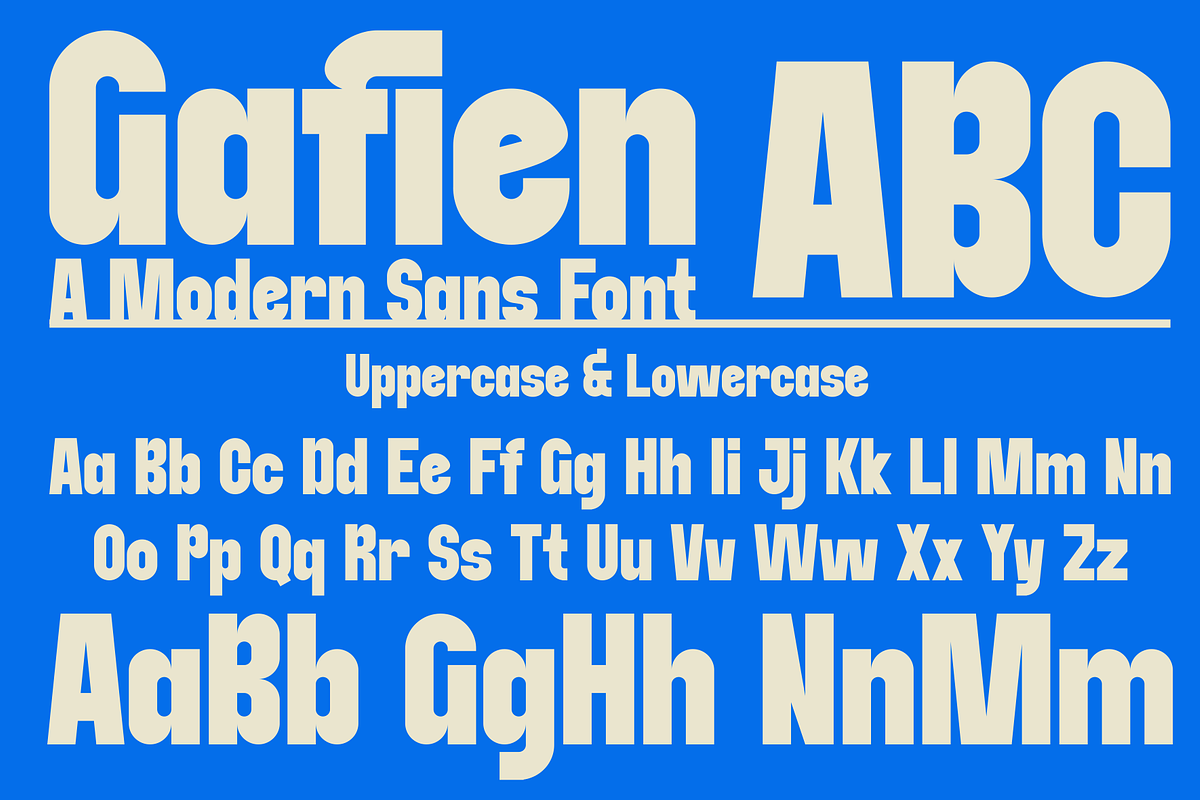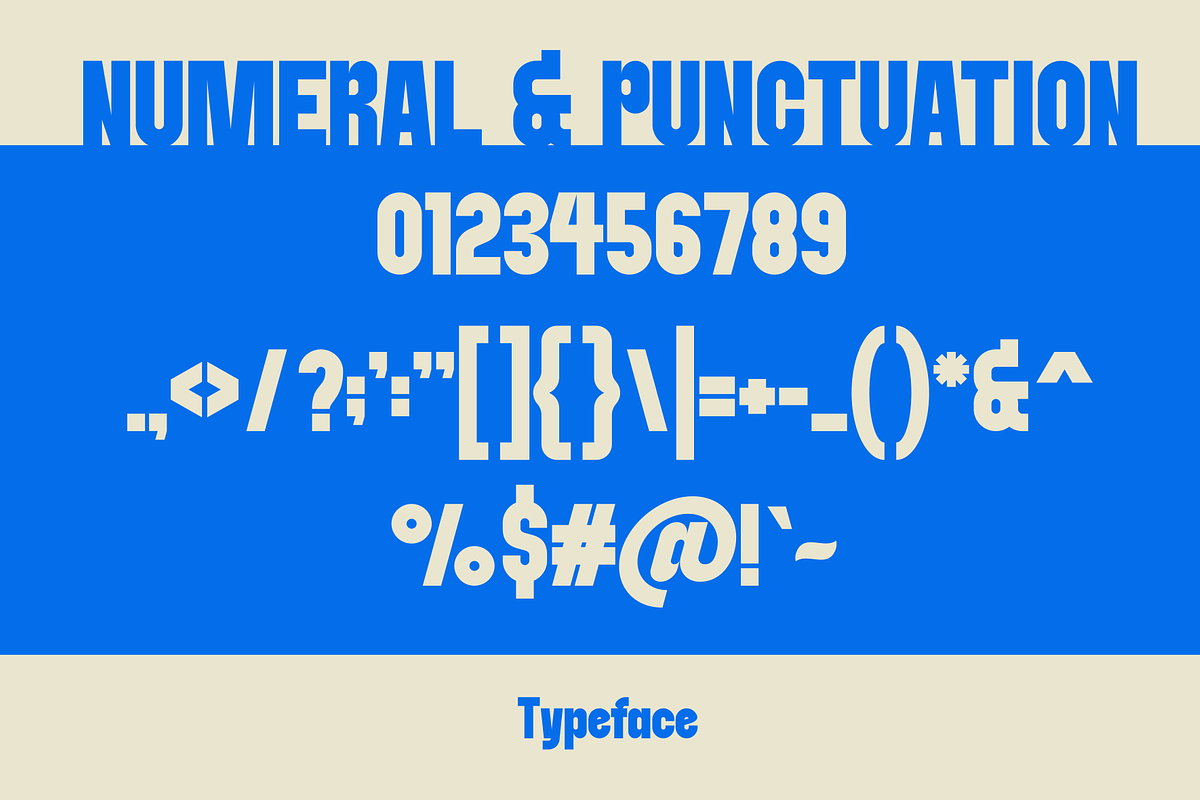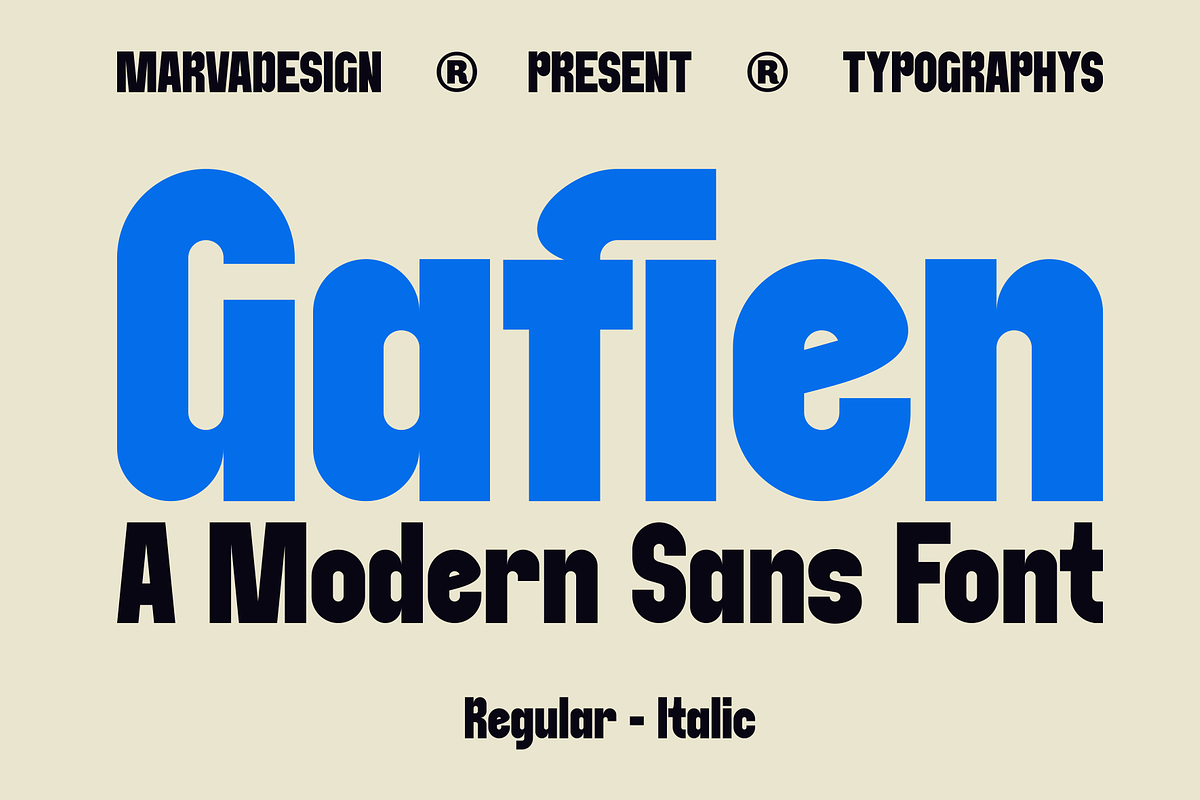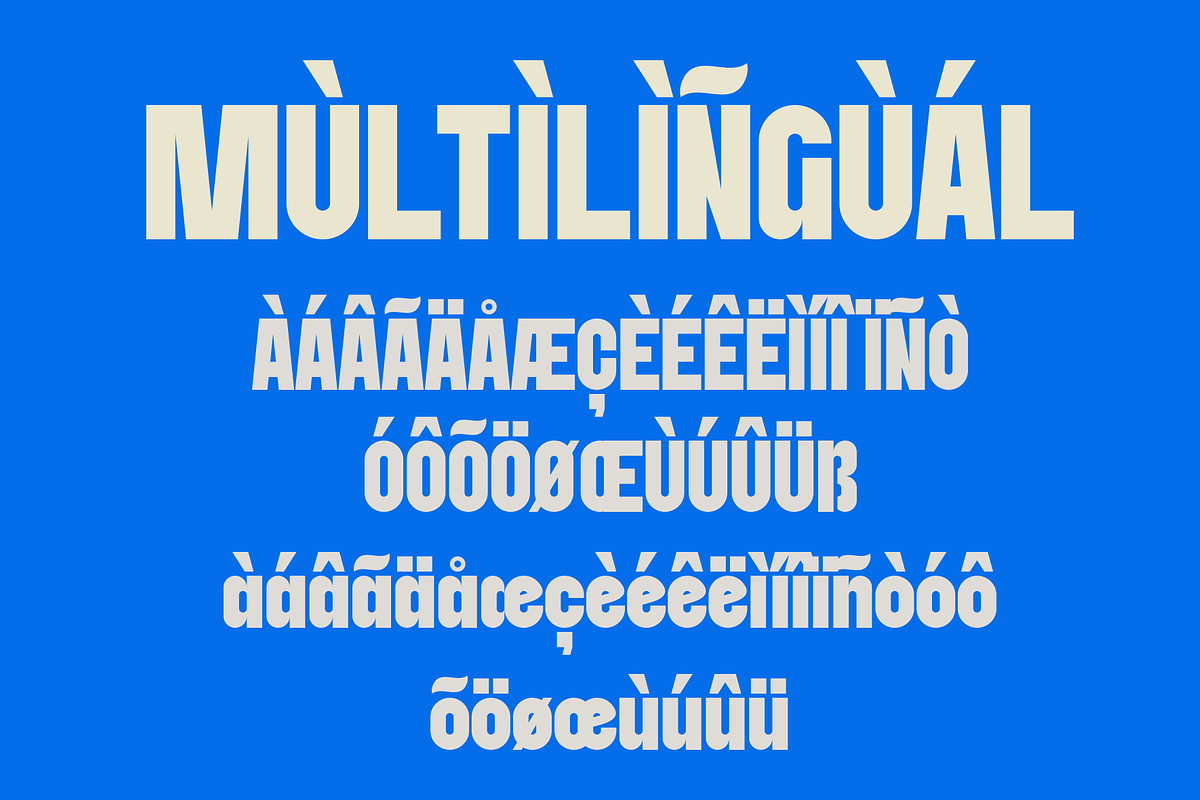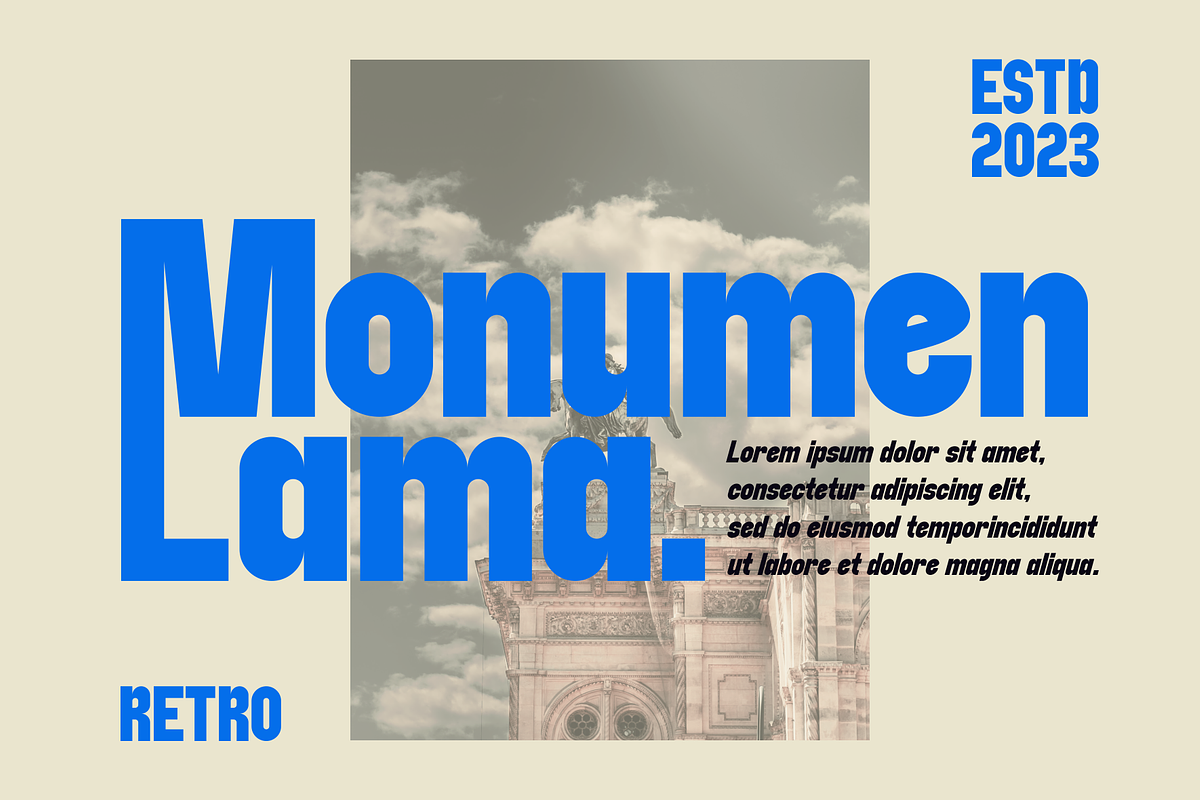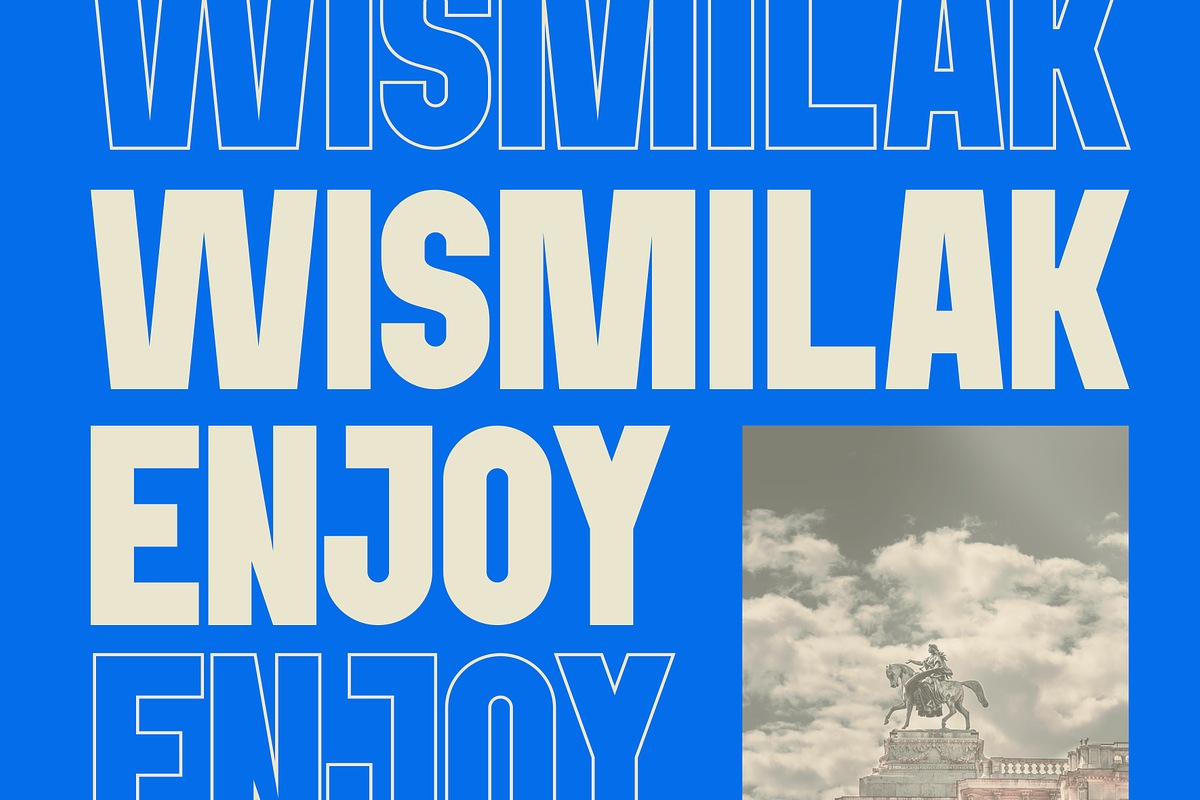
Gafien - A Modern Sans Serif
Introducing our new product Gafien Font - Modern Font Gafien Font** - Modern Font is a bold and authentic display font. The font is suitable for any branding project like logo, Template Product and many more. outstanding in a wide range of contexts.